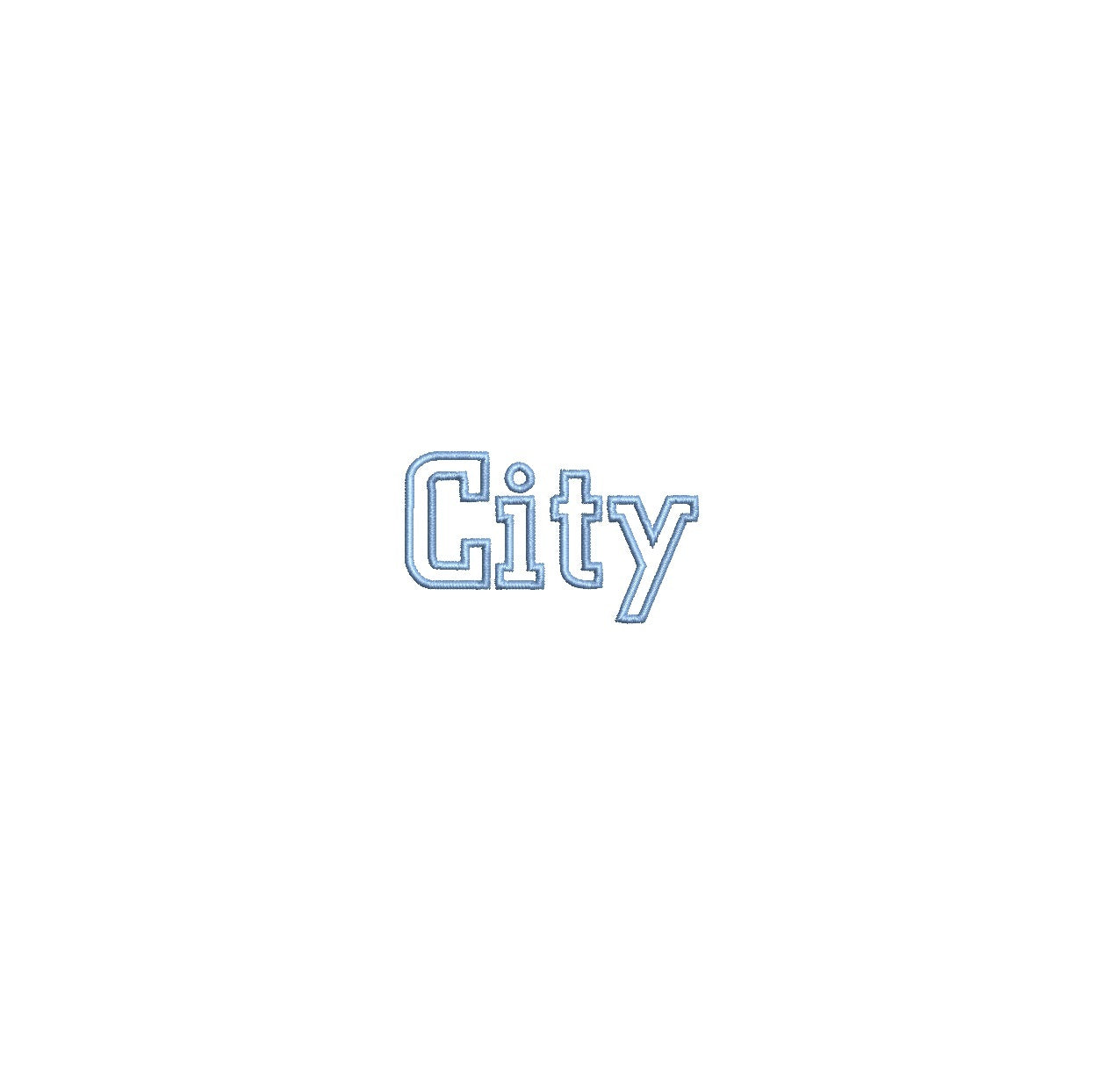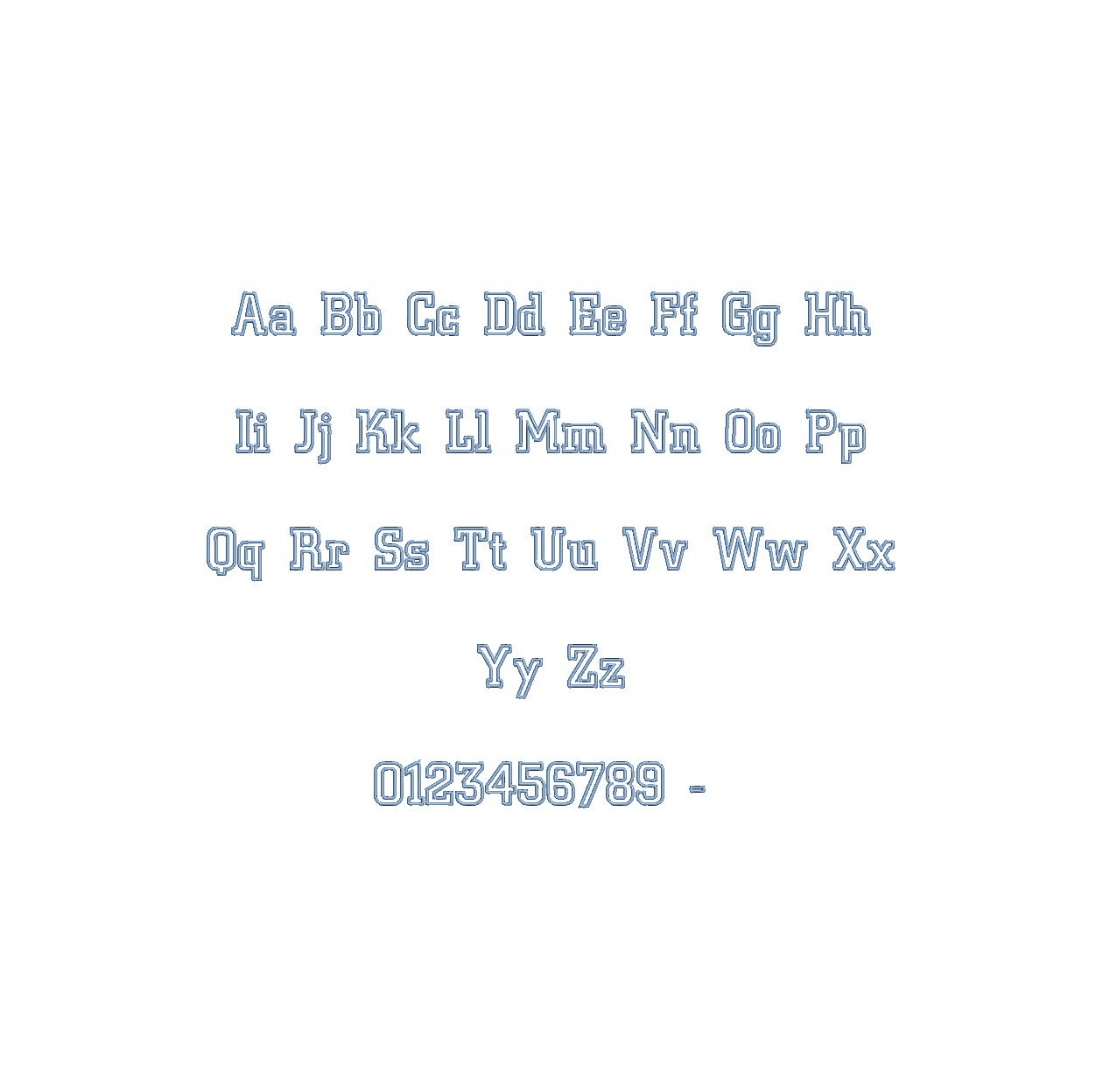
City Outline ESA font
Discover the perfect synergy of design precision and digitizing excellence with the City Outline ESA font, now seamlessly compatible with Wilcom Studio e4.5.6 and Hatch 3 versions and beyond. Elevate your embroidery projects with this versatile typeface, meticulously crafted for flawless stitching. Its clean, elegant lines make it ideal for urban-themed designs, logos, and monograms. Experience exceptional readability and effortless editing within your preferred embroidery software. Boost your productivity and creativity today. Get the City Outline ESA font and unlock a world of design possibilities. Elevate your embroidery game with this essential addition to your digitizing toolbox.